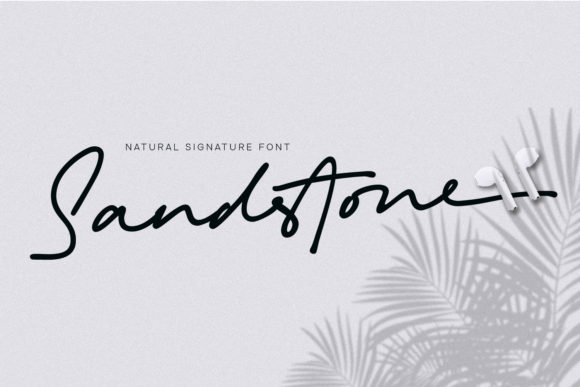
Sandstone Font: A Stroke of Elegance for Your Creative Projects
Journey into the realm of Sandstone Font, a script font that embodies the essence of grace and fluidity. Inspired by the allure of handwritten artistry, this font carries a disarming charm that breathes life into your creative expressions.
Sandstone Font: Where Beauty and Functionality Converge
Immerse yourself in the captivating world of Sandstone Font, where aesthetics and functionality dance in perfect harmony. This carefully crafted font family was meticulously designed to provide a seamless experience, allowing your words to flow effortlessly from one letter to the next.
Unlock the Endless Possibilities of Sandstone Font
With Sandstone Font, the possibilities are limitless. Let your creativity soar as you craft stunning wedding invitations, heartfelt thank-you cards, or thought-provoking quotes. This font's versatility extends to greeting cards, логотипы, and business cards, adding a touch of sophistication to your professional endeavors.
Sandstone Font: The Perfect Choice for Your Brand Identity
In a world saturated with digital noise, a strong brand identity is paramount. Sandstone Font emerges as the ultimate solution for businesses seeking to leave a lasting impression. With its ability to convey a sense of trustworthiness and authenticity, this font elevates your brand logo to new heights, ensuring that your message resonates with your target audience.
Experience the Magic of Sandstone Font Today
Sandstone Font is more than just a collection of glyphs and swashes; it's an invitation to unleash your creativity and make a statement. Embrace the power of this font and watch as your designs transform into works of art. Seize the opportunity to make a bold statement, leaving an indelible mark on the hearts and minds of your audience.